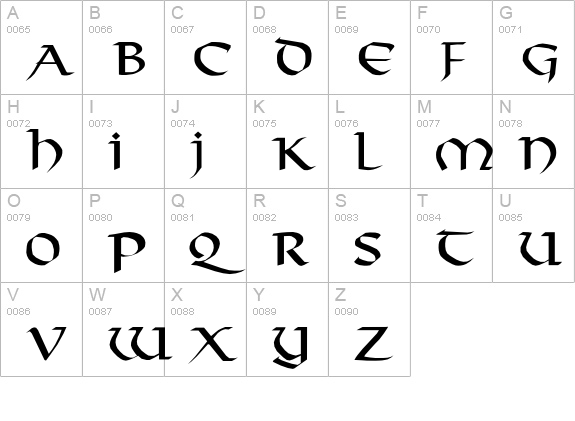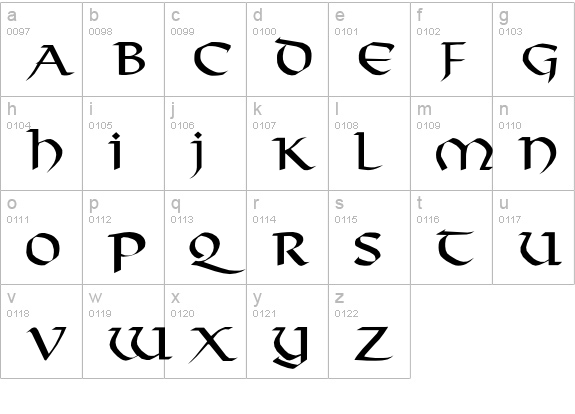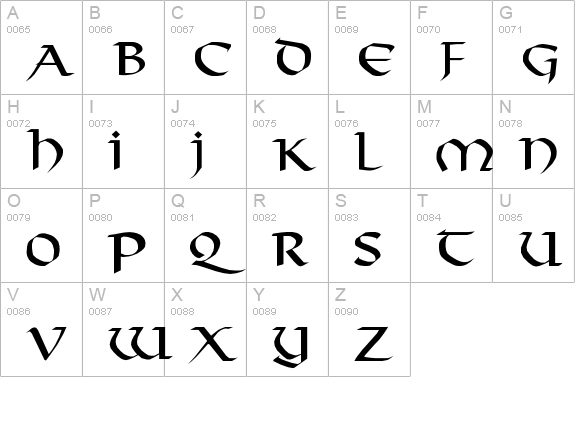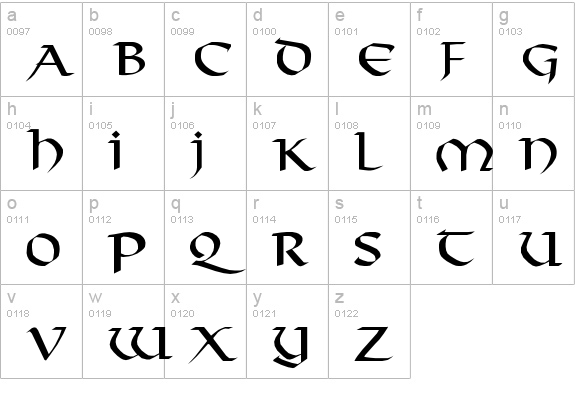
Introducing Tarantis, a stunning and versatile font that will elevate your designs to new heights. This font is the perfect blend of elegance and modernity, making it suitable for a wide range of projects. Whether you're designing a logo, creating a brand identity, or working on a website, Tarantis will bring a touch of sophistication to your work. What sets Tarantis apart is not only its impeccable design but also its accessibility. This font is freely available to download at FontsMarket.com, making it accessible to designers of all levels. Now, you can bring a touch of professionalism to your projects without breaking the bank. Tarantis boasts a wide range of characters, including uppercase and lowercase letters, numbers, and punctuation marks. This versatility allows you to experiment with different styles and create truly unique designs. The clean lines and balanced proportions of Tarantis ensure legibility at any size, making it suitable for both print and digital projects. Whether you're looking to create elegant wedding invitations, eye-catching posters, or sleek corporate presentations, Tarantis has got you covered. Its timeless appeal and ability to adapt to various design styles make it a go-to choice for designers worldwide. Download Tarantis today from FontsMarket.com and unlock a world of creative possibilities. With its incredible design and the freedom to use it in your projects, Tarantis is sure to become your new favorite font. So, why wait? Take your designs to the next level with Tarantis and let your creativity soar.